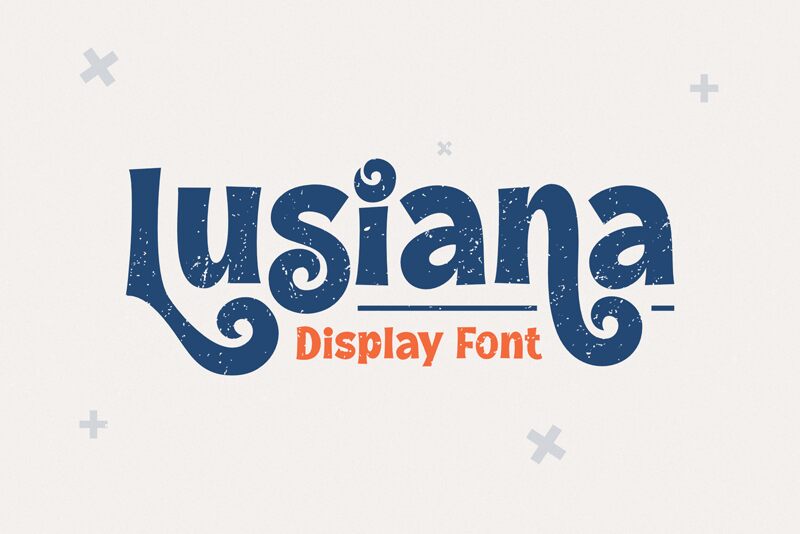
Introducing Lusiana, a bold comic display font designed by Toni Dzulham. Perfect for adding a unique touch to your projects, it's ideal for creating eye-catching titles and logos, statement posters and more.